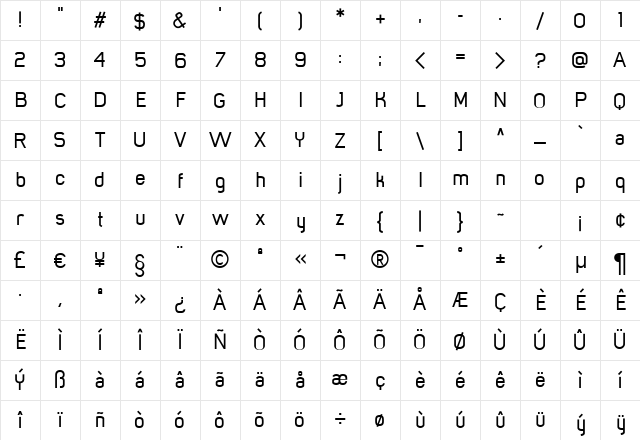
MisterGiacco Regular Free Font
MisterGiacco Regular
Foundry: SUDTIPOS. Dise ada por Diego giaccone. Todos los derechos reservados. Buenos Aires, Argentina
Design Context for MisterGiacco
MisterGiacco is a composed and adaptable typeface that performs quietly and consistently across a wide range of design contexts.
Who designed the MisterGiacco Regular font?
This font was published by SUDTIPOS. Dise ada por Diego giaccone. Todos los derechos reservados. Buenos Aires, Argentina. Check the technical specs section for copyright and designer details.